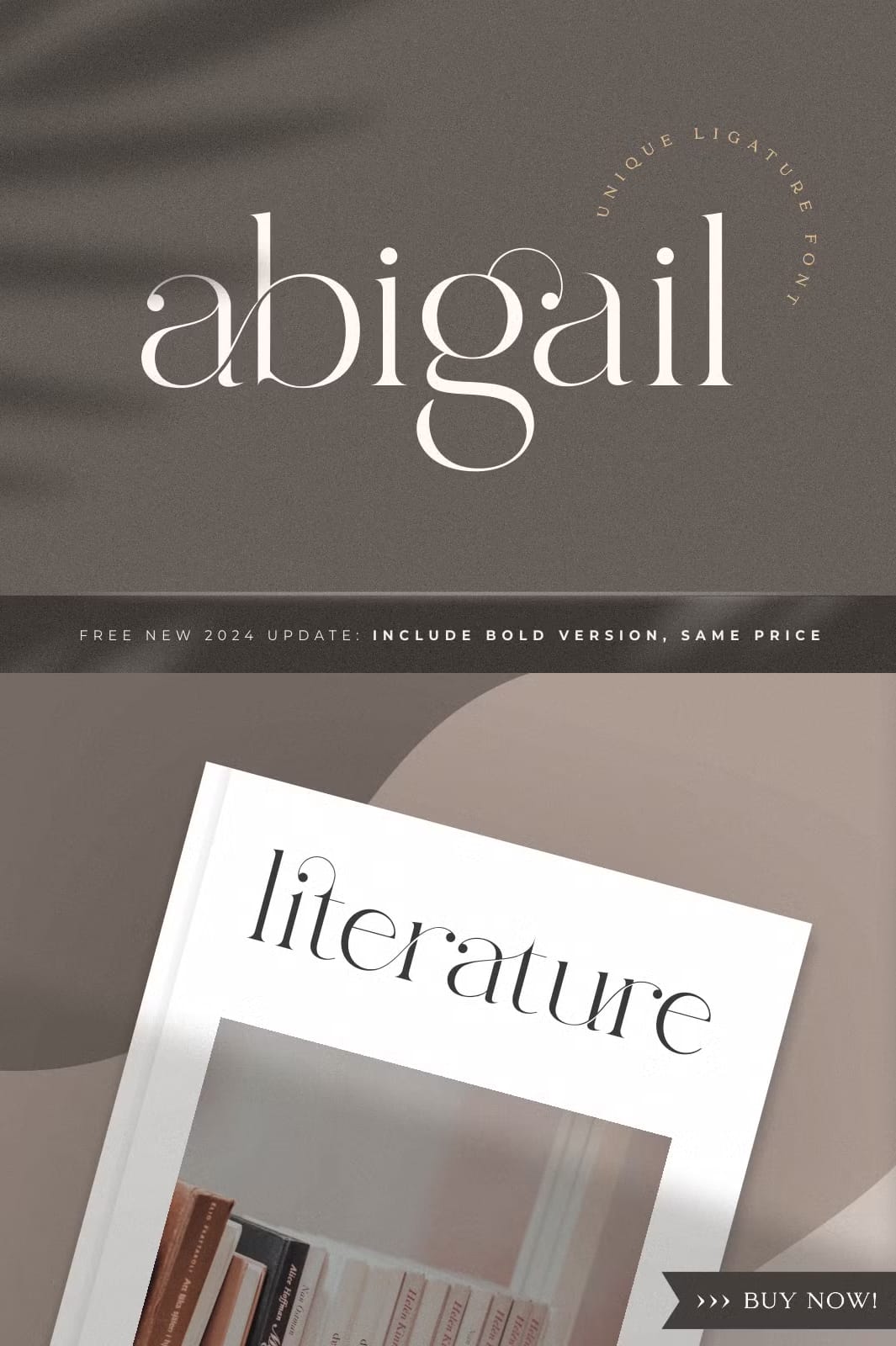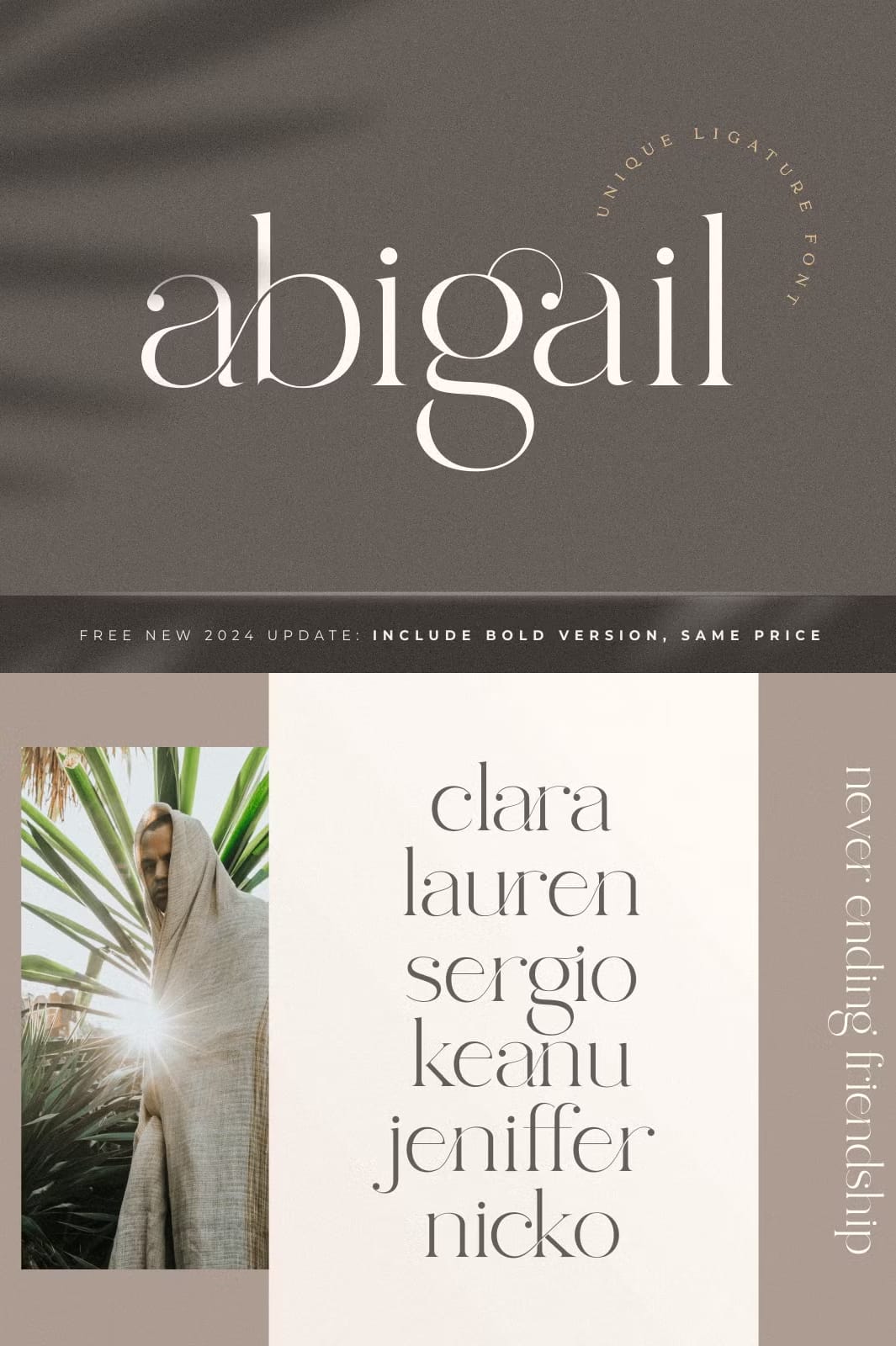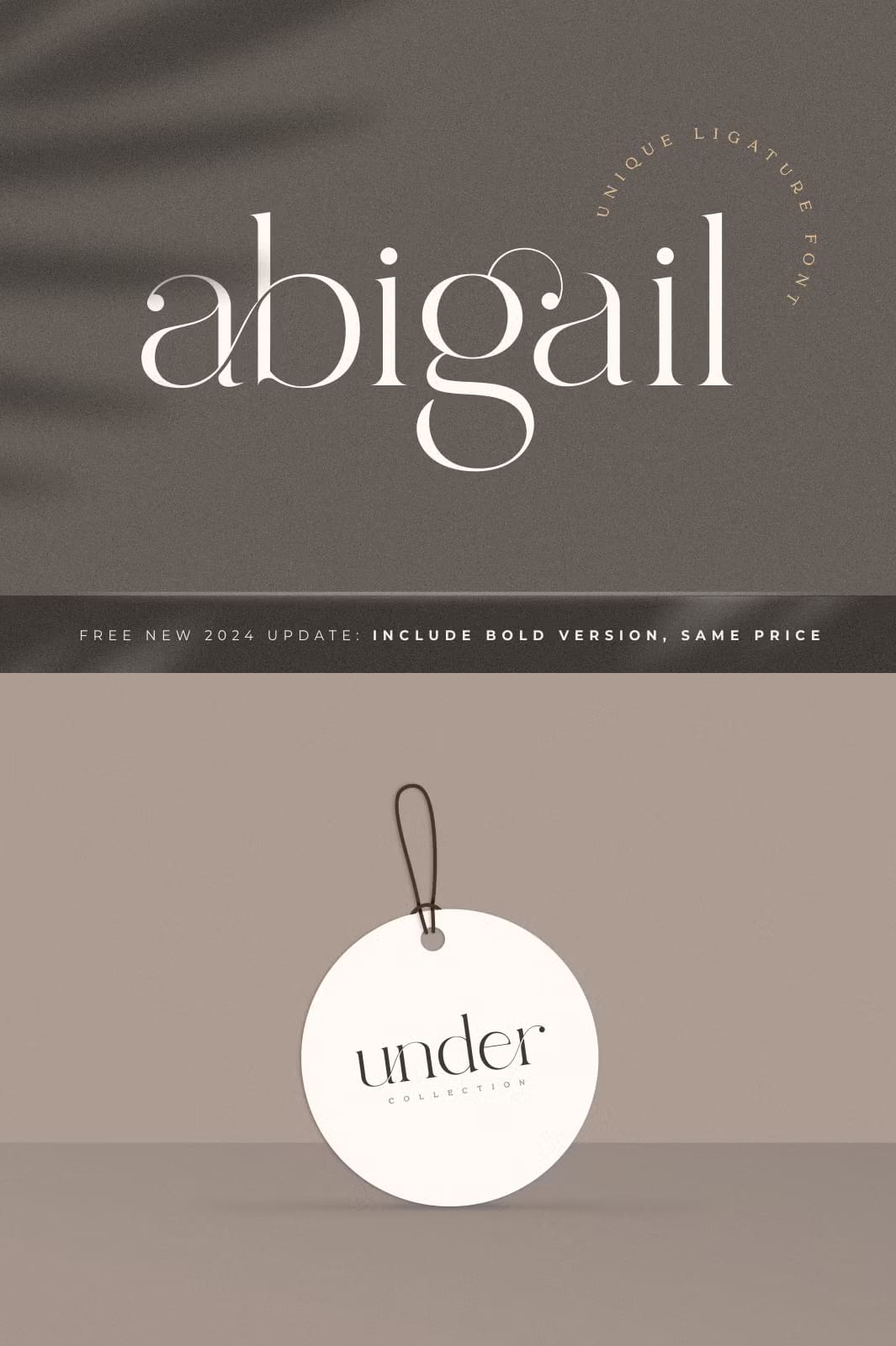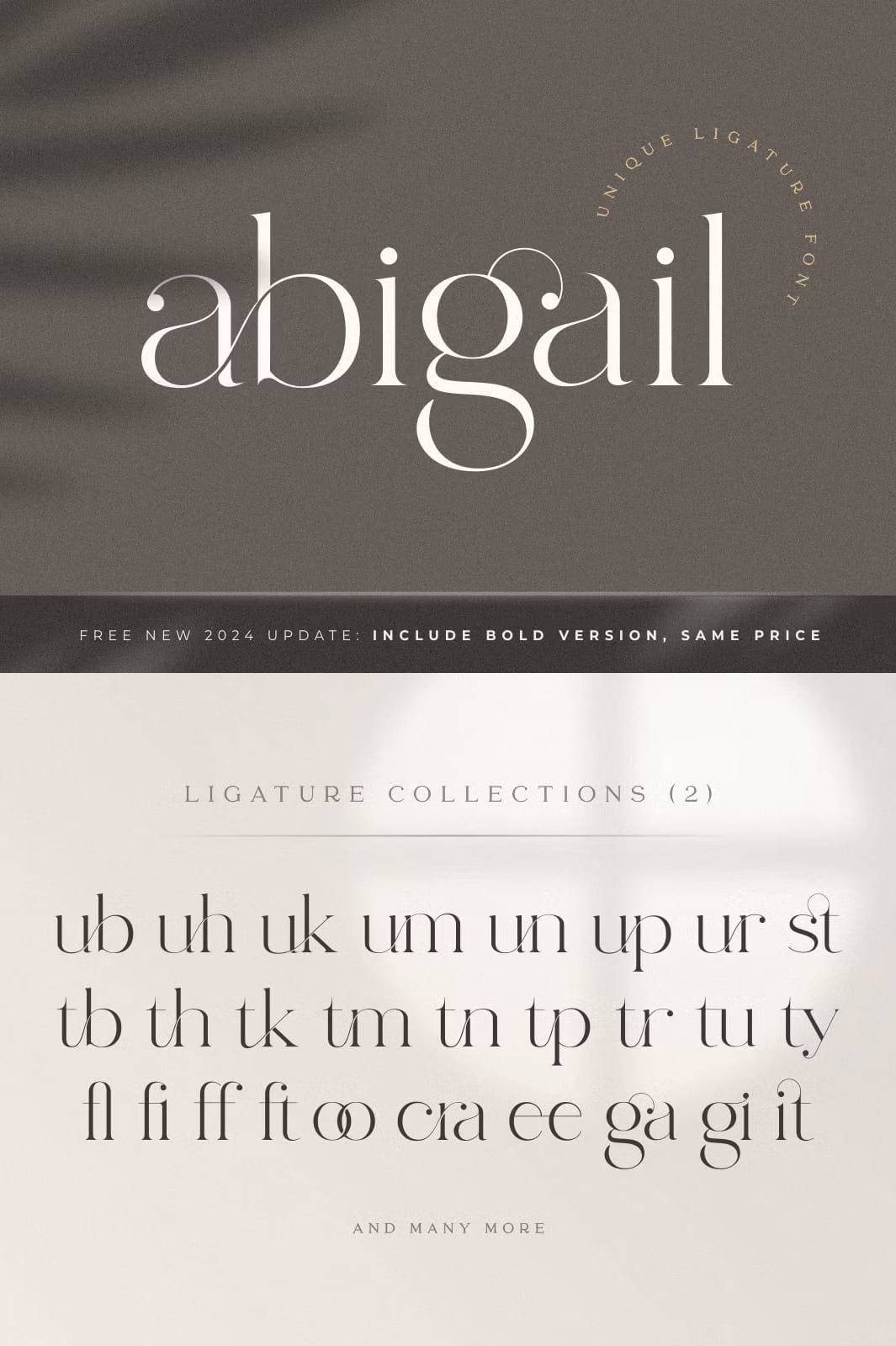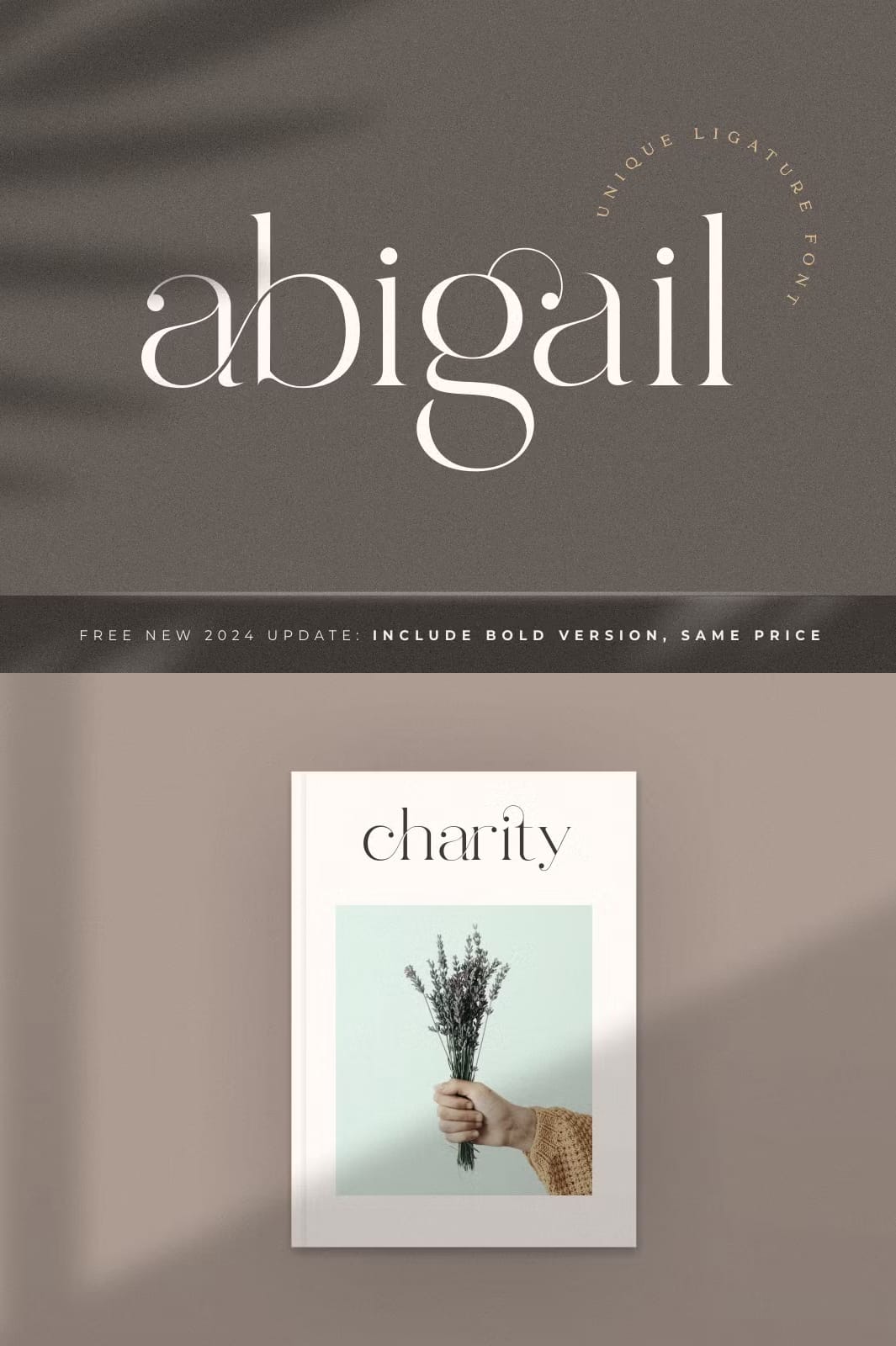
Discover Abigail: A Font Crafted for Distinctive Brand Identity
Abigail is a uniquely elegant font meticulously designed to elevate your branding and logo projects. Drawing from extensive experience in graphic design, this font was created to fulfill the demand for logos that are both unique in style and refined in appearance. Abigail empowers designers to craft logos that stand out with a perfect balance of sophistication and originality, making it an essential tool for any branding professional.
Why Abigail Stands Out in Logo Design
In the competitive world of branding, having a font that conveys both uniqueness and elegance is crucial. Abigail achieves this by combining classic serif elements with modern design sensibilities. Its carefully crafted letterforms provide a timeless aesthetic that enhances brand recognition and communicates professionalism. Whether you are designing for startups, luxury brands, or creative agencies, Abigail offers the versatility and style needed to make a lasting impression.
Extensive Ligature Set for Enhanced Creativity
To further distinguish your designs, Abigail includes a comprehensive set of ligatures that add fluidity and character to your typography. These ligatures include combinations such as ab, ah, am, an, ar, ak, ap, at, oo, cb, ch, ck, cm, cn, cr, ct, eb, eh, ek, em, en, ep, er, ub, uh, uk, um, un, up, ur, st, tb, th, tk, tm, tn, tp, tr, tu, ty, fl, fi, ff, ft, oo, cra, ee, ga, gi, it, and the updated version 2 adds ob, oh, om, on, op, or. These ligatures allow you to create smooth, connected letterforms that enhance the visual flow and uniqueness of your logos and branding materials.
Comprehensive Character Set for Global Use
Abigail is not only about style but also about functionality. It includes a full set of uppercase and lowercase letters, numerals, punctuation, and multilingual symbols. This extensive character set ensures that your designs can communicate effectively across different languages and markets, making Abigail a truly global font choice.
Perfect Applications for Abigail Font
Branding and Logo Design
Abigail’s elegant and unique style makes it the perfect choice for creating memorable brand identities. Its refined letterforms and ligatures help you design logos that are both classy and distinctive, ensuring your brand stands out in any industry.
Marketing Materials
Use Abigail to add a touch of sophistication to your marketing collateral, including business cards, brochures, and advertisements. Its versatility allows it to complement various design styles while maintaining a consistent brand voice.
Packaging Design
Elevate your product packaging with Abigail’s elegant typography. The font’s unique character and ligatures add a luxurious feel that can enhance the perceived value of your products.
Why Choose Abigail for Your Next Project?
| Feature | Benefit |
|---|---|
| Unique and Elegant Design | Creates distinctive and classy logos that stand out |
| Extensive Ligature Set | Enhances creativity and smooth typographic flow |
| Full Character Set | Supports uppercase, lowercase, numerals, punctuation, and multilingual symbols |
| Perfect for Branding | Ideal for logos, marketing materials, and packaging design |